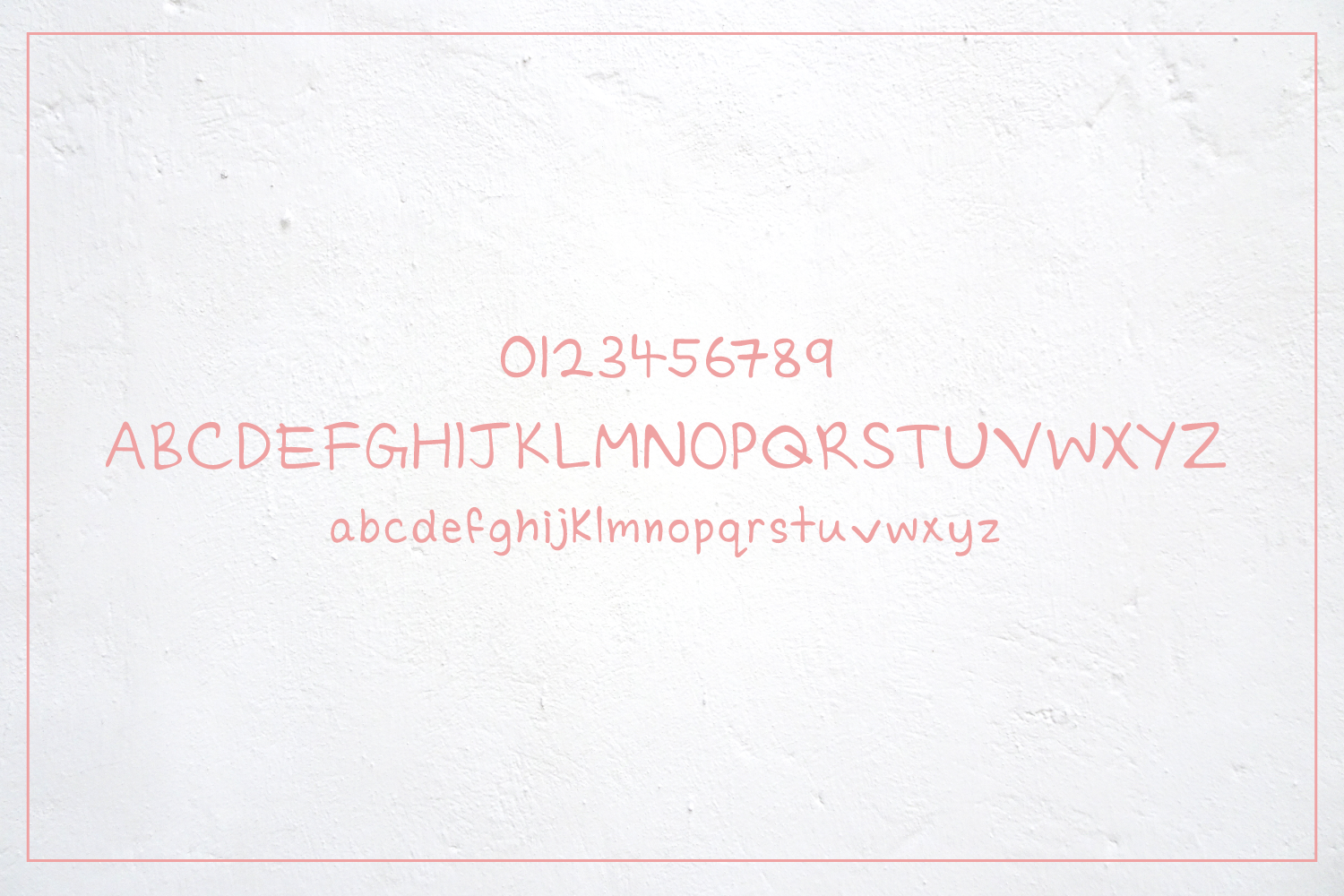
HomeScript FontsCharmie Font Script Fonts Charmie Font FacebookXPinterestWhatsApp Charmie Font Poster 2 About Charmie Font A simple, cute, handwritten display font. Works great for adding a slight elegant touch to your designs. DOWNLOAD ON CREATIVE FABRICAThis font is sold and delivered by Creative Fabrica. Font Canyon may earn a commission if you buy through this link. People also explored Martyn Font Western Culture Font Chalisa Oktavia Font Canva Vintage Dear Cheri Font Little Quotes Amegach Font Strezed Font Haeock Family Font 355 0 TagsCharmie Font Previous articleMareena FontNext articleModesty Font LEAVE A REPLY Cancel reply Comment: Please enter your comment! Name:* Please enter your name here Email:* You have entered an incorrect email address! Please enter your email address here Website: Save my name, email, and website in this browser for the next time I comment. Personal Use Free Shrag Script Personal Use Free Read more about this font Dr.Marz Personal Use Free Read more about this font Satori Personal Use Free Read more about this font Hatchill Personal Use Free Read more about this font BLOG 5 Fonts That Will Dominate Design Trends in 2026 5 Fonts for 2026 That Will Dominate Design Trends Typography plays a critical role in visual communication, and as we look ahead to 2026, it’s... To increase your work productivity, choose the most readable fonts. Best Fonts for YouTube Videos: Make Your Thumbnails Stand Out Free vs Paid Fonts: Why Investing in Premium Fonts Is Worth It